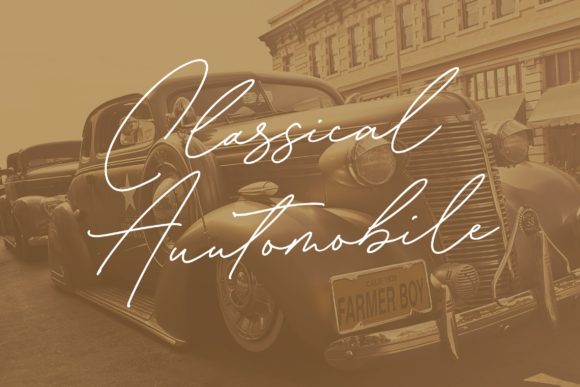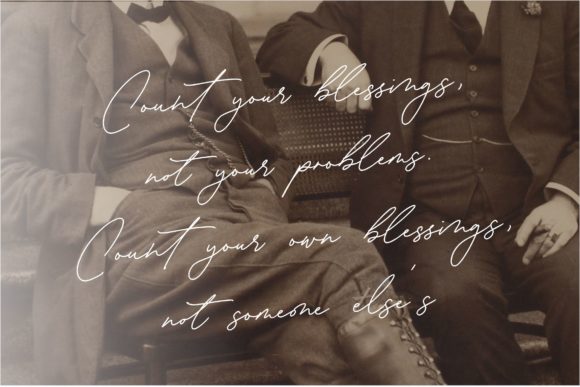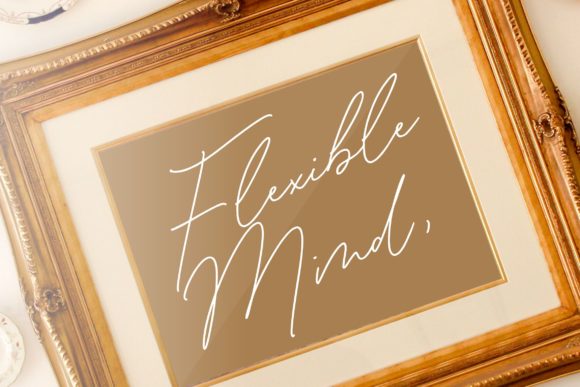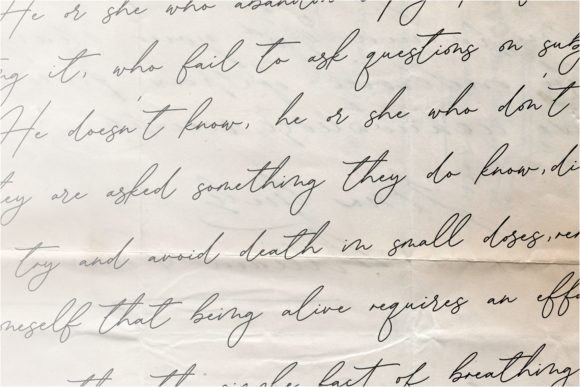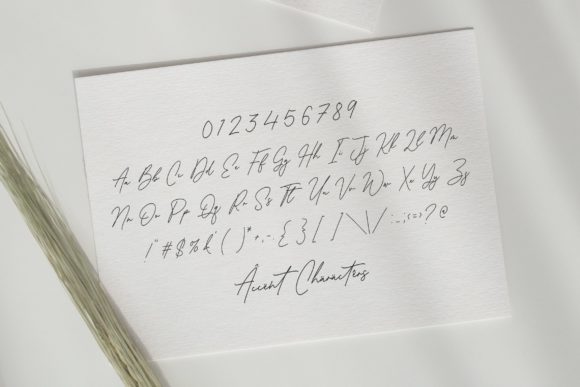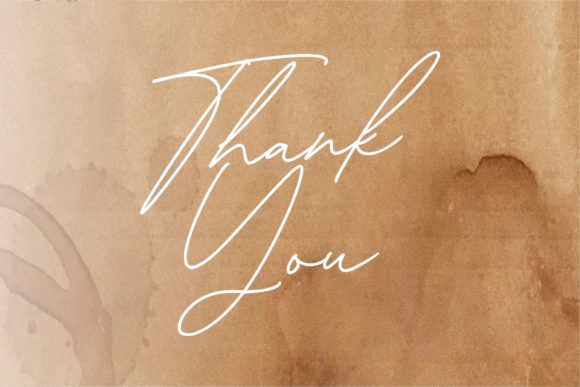
Discover the Unique Style of Antonio Fischer Font
In the world of typography, classic fonts have always been a staple for designers and crafters. However, with the ever-evolving landscape of design, it’s refreshing to see a font that pays homage to the classics while bringing its own unique style to the table. Enter Antonio Fischer Font, a fantastic handwritten font that’s making waves in the design community.
Inspiration from Classic Typography
Antonio Fischer Font draws inspiration from the timeless elegance of classic typography. Its creator aimed to capture the essence of traditional fonts while infusing it with a modern twist. The result is a font that’s both nostalgic and fresh, perfect for designers looking to add a touch of sophistication to their projects.
One of the standout features of Antonio Fischer Font is its versatility. This fantastic handwritten font is best suited for headlines of all sizes, as well as for blocks of text that have both maximum and minimum variations. Whether you’re working on a web design project, print material, or even moving images, Antonio Fischer Font will look spectacular.
Perfect for Headlines and Body Text
Antonio Fischer Font’s unique style makes it an excellent choice for headlines, adding a touch of elegance and sophistication to any design project. However, its legibility and flow also make it suitable for body text, allowing you to use it for both large and small blocks of text. This versatility makes it an ideal font for designers who want to maintain consistency throughout their project.
Web, Print, and Beyond
The beauty of Antonio Fischer Font lies in its adaptability. It can be used for a wide range of applications, from web design to print materials, and even moving images. Its high-quality design ensures that it will look great on any medium, making it a valuable asset for designers who work on various projects.
Why Choose Antonio Fischer Font?
With so many fonts available, why choose Antonio Fischer Font? Here are a few compelling reasons:
- Unique Style: Antonio Fischer Font brings a fresh perspective to classic typography, making it an excellent choice for designers looking to stand out.
- Versatility: Its adaptability makes it suitable for various design projects, from web and print to moving images.
- Legibility: The font’s design ensures that it’s easy to read, making it perfect for both headlines and body text.
Tips for Using Antonio Fischer Font
To get the most out of Antonio Fischer Font, here are a few tips:
- Experiment with Sizes: Antonio Fischer Font looks great in various sizes, so don’t be afraid to experiment with different font sizes to find the perfect fit for your project.
- Pair it with Other Fonts: Try pairing Antonio Fischer Font with other fonts to create a unique and visually appealing design.
- Use it for Headlines and Body Text: Take advantage of the font’s versatility by using it for both headlines and body text.